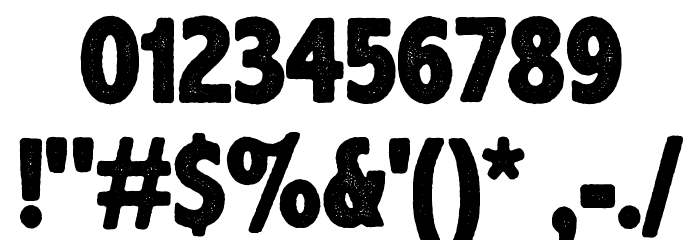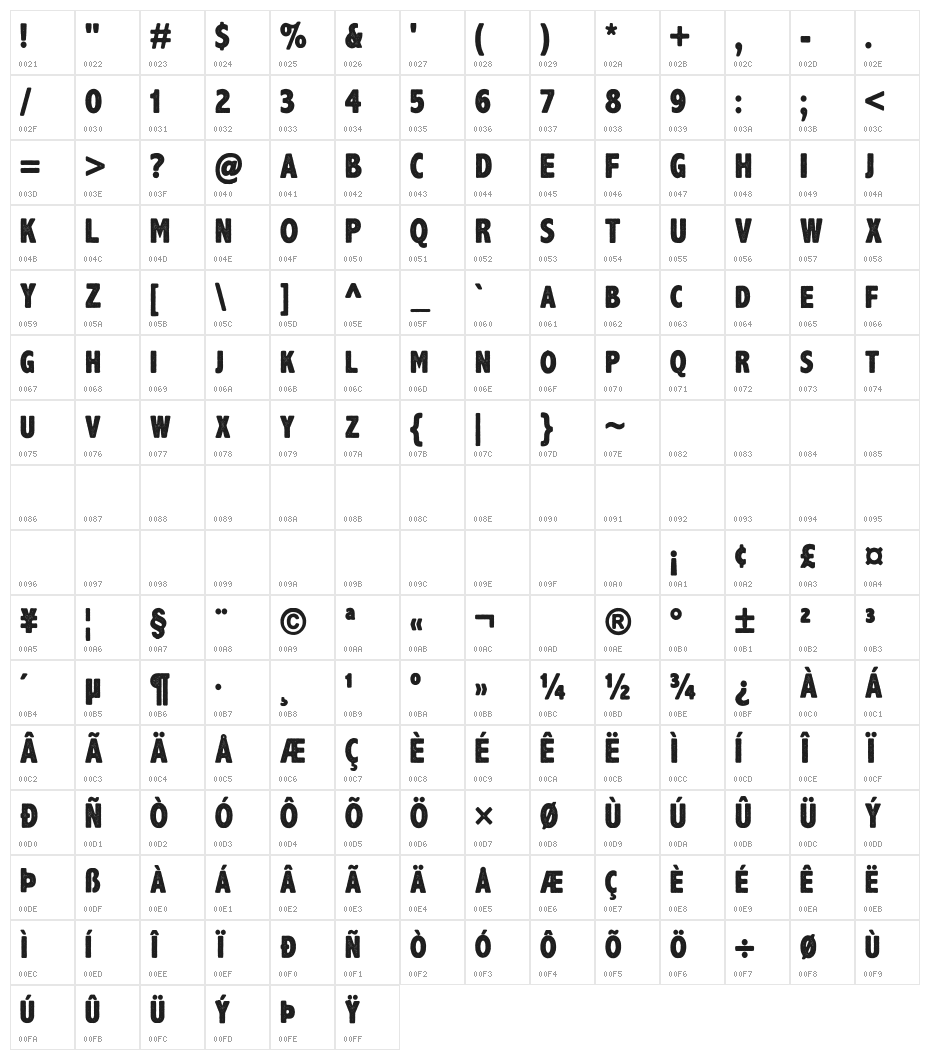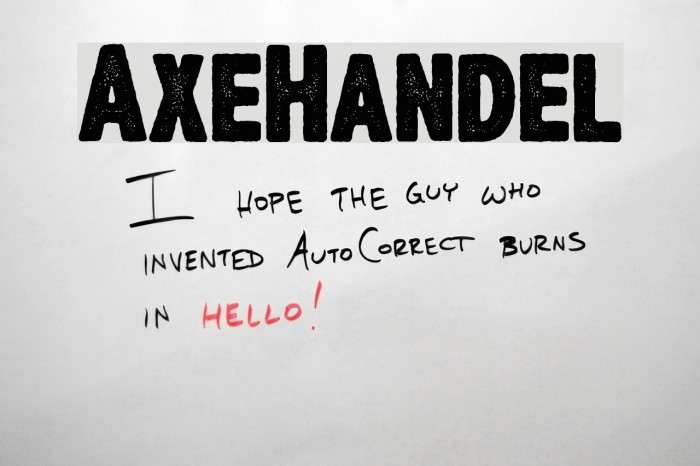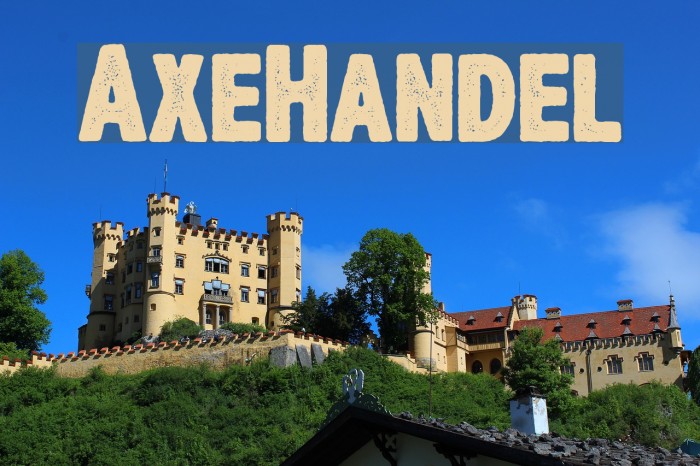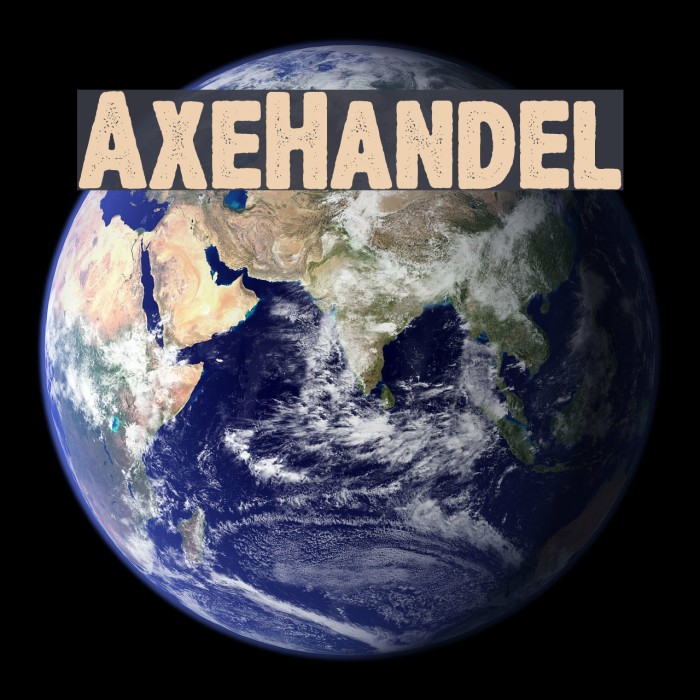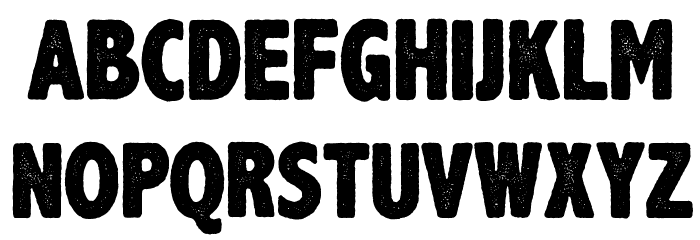
AxeHandel Font
AxeHandel Description
This font features a bold, textured style with a distressed appearance, giving it a rugged and vintage feel. The characters are thick and blocky, with a slightly uneven texture that adds to its handcrafted look. The uppercase and lowercase letters maintain a consistent weight, while the numbers and special characters follow the same design ethos. The font's boldness and texture make it stand out, ideal for projects that require a strong visual impact.